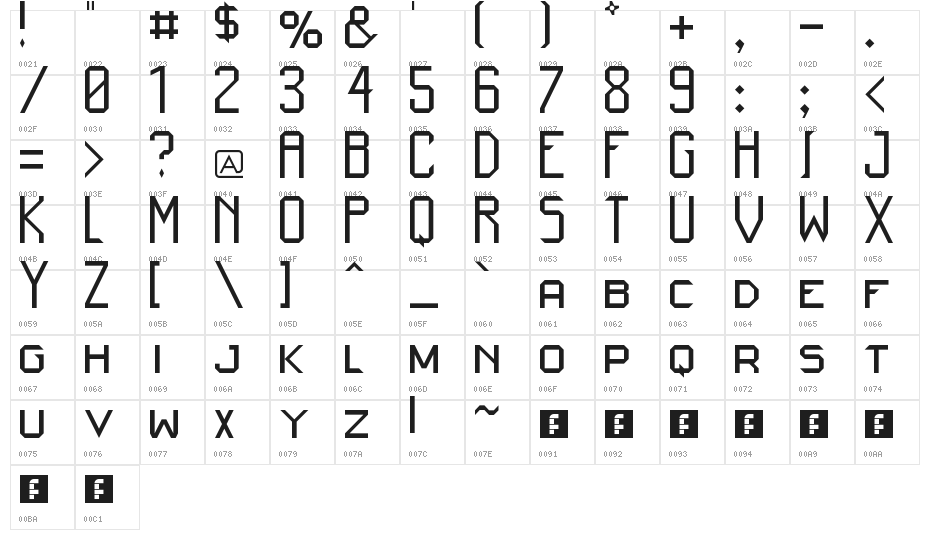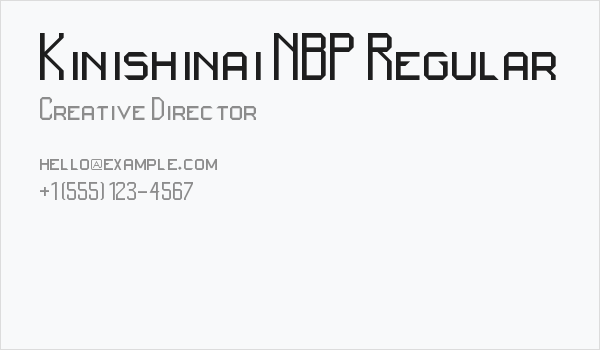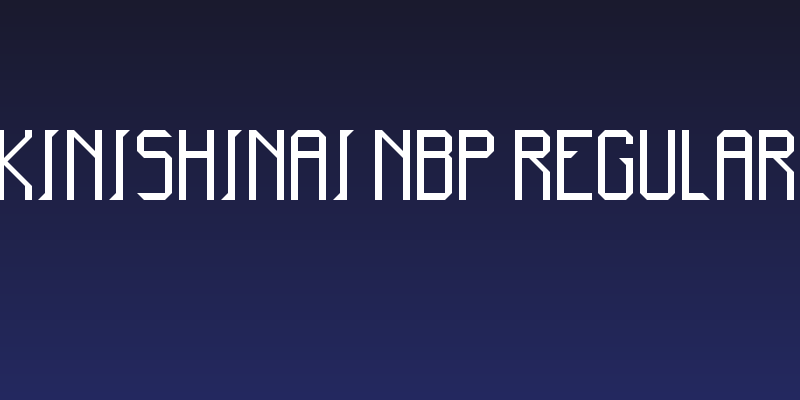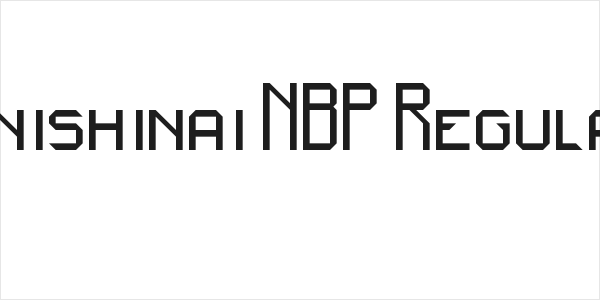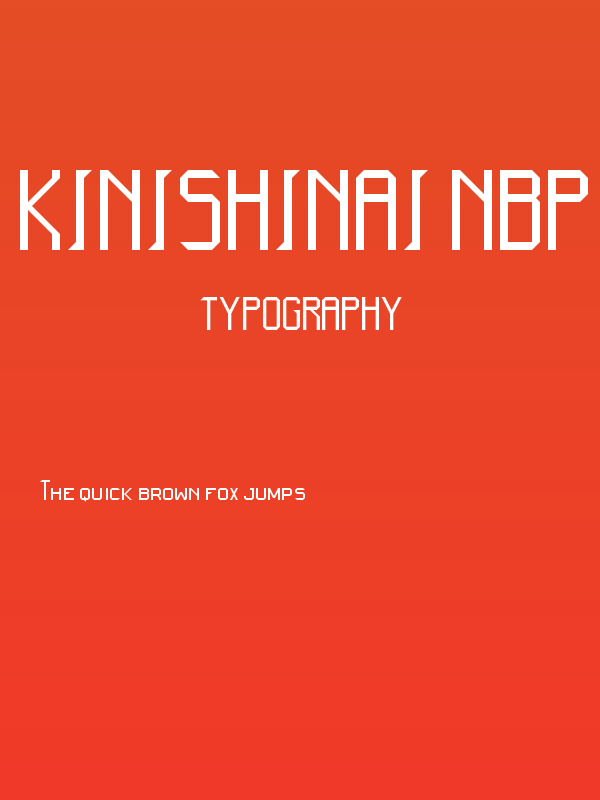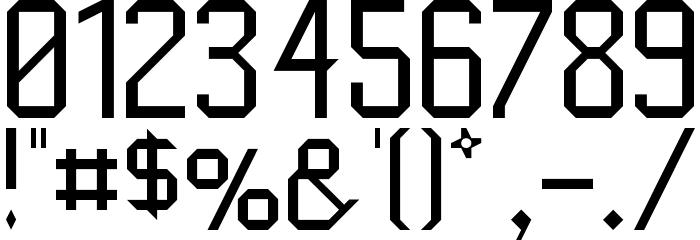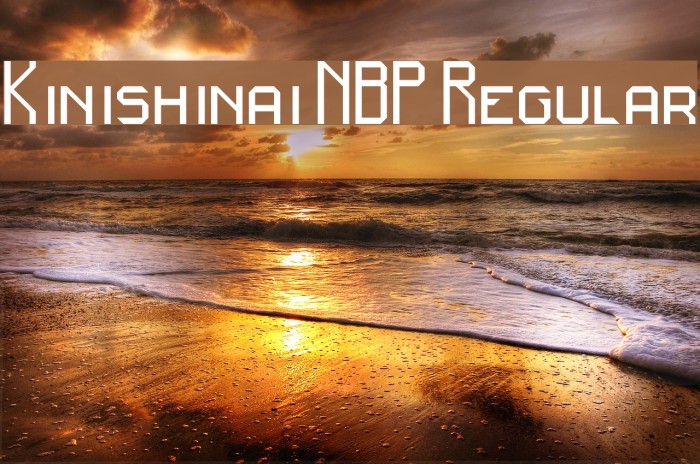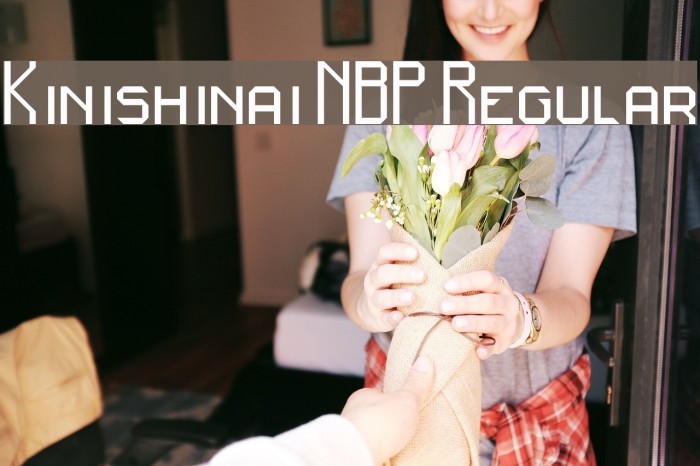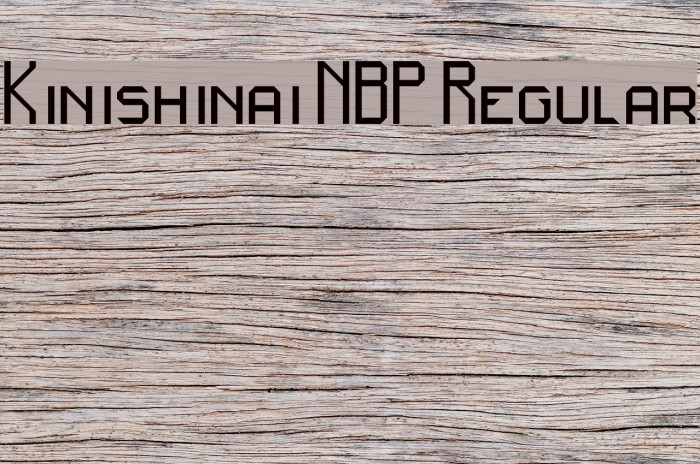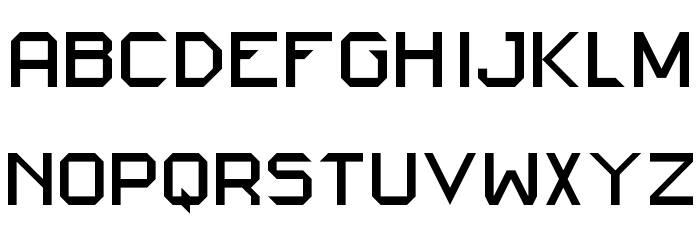
Kinishinai NBP Regular Font
This font features a geometric and angular design, characterized by its sharp edges and clean lines. The uppercase and lowercase letters maintain a consistent height, creating a uniform appearance. The numerals and special characters follow the same angular style, ensuring cohesion across all glyphs. The overall look is modern and slightly futuristic, with a technical feel that suggests precision and clarity. The characters are evenly spaced, contributing to a balanced and readable text. This font is well-suited for digital interfaces, technical documents, and branding that requires a contemporary and distinctive touch.
| Proposed Projects | Ideal for digital interfaces, technical documents, branding, and futuristic designs. |